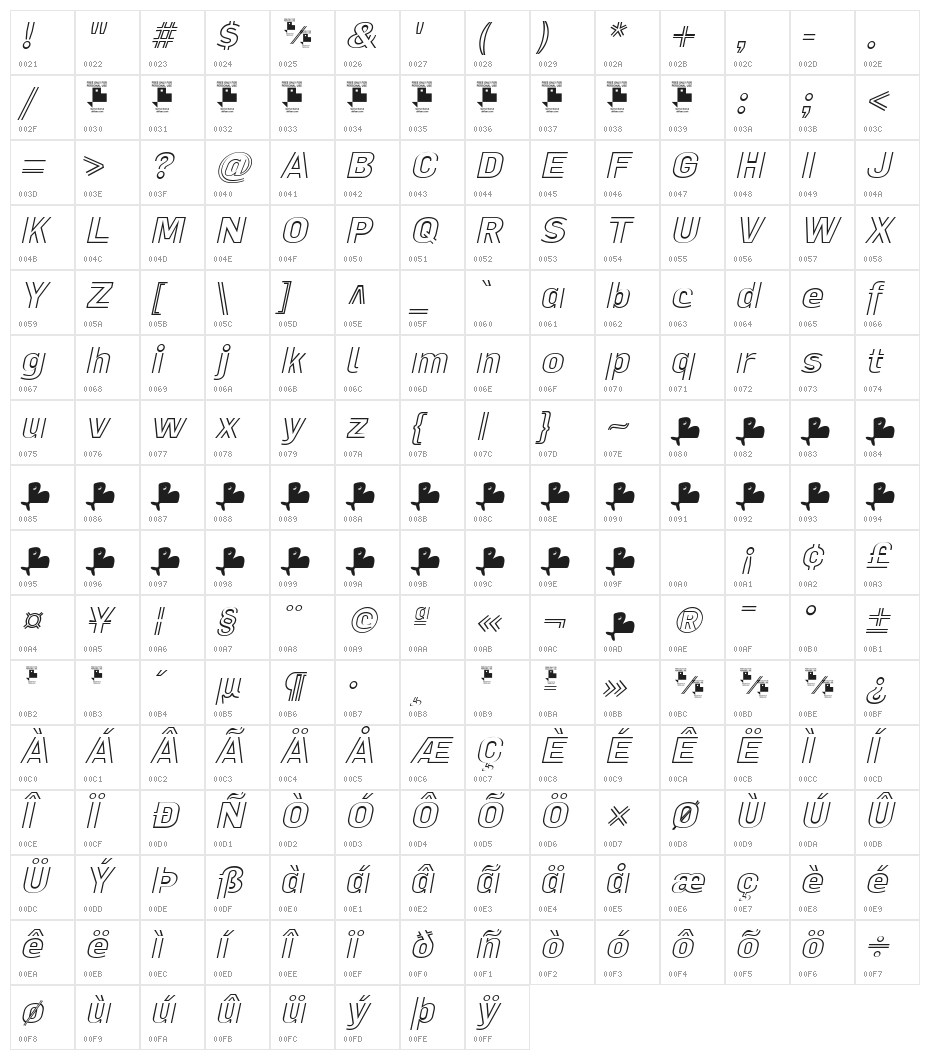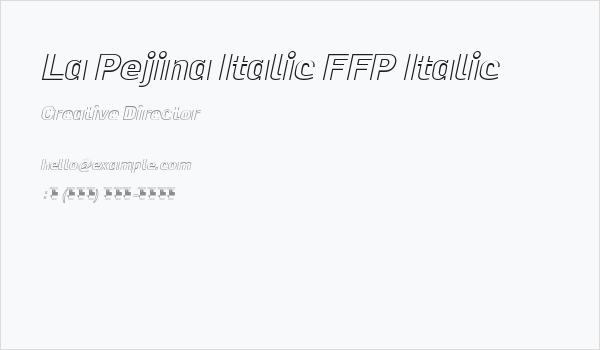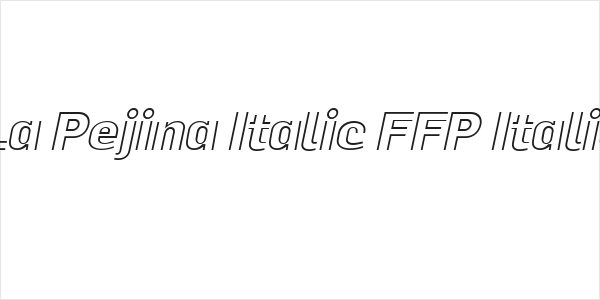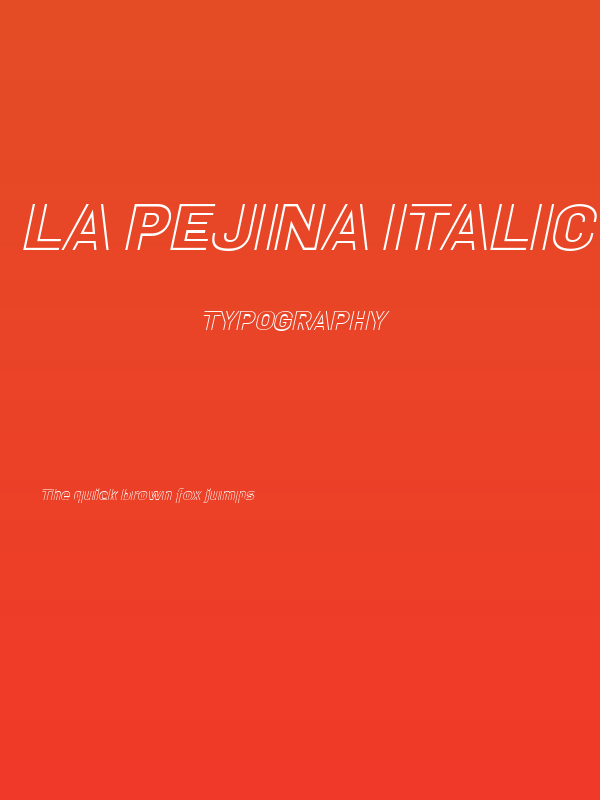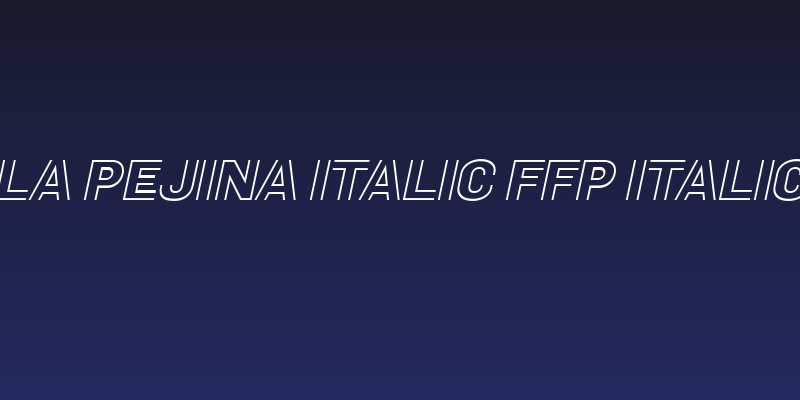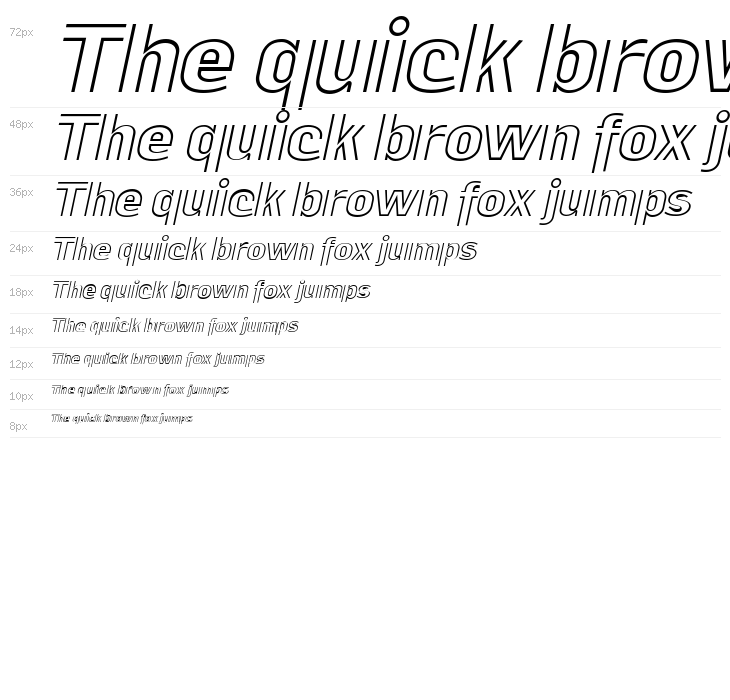
La Pejina Italic FFP Italic Font
La Pejina Italic FFP Italic Description
This font features a sleek, italicized design with a modern and dynamic appearance. The characters are slightly slanted, giving a sense of motion and elegance. The strokes are consistent in width, providing a clean and uniform look. The uppercase and lowercase letters maintain a harmonious balance, while the numerals and special characters complement the overall style. The font's open and airy structure makes it highly legible, even at smaller sizes, and its contemporary flair adds a touch of sophistication to any project.
| Proposed Projects | Ideal for branding, advertising, and editorial design where a modern and elegant touch is desired. |